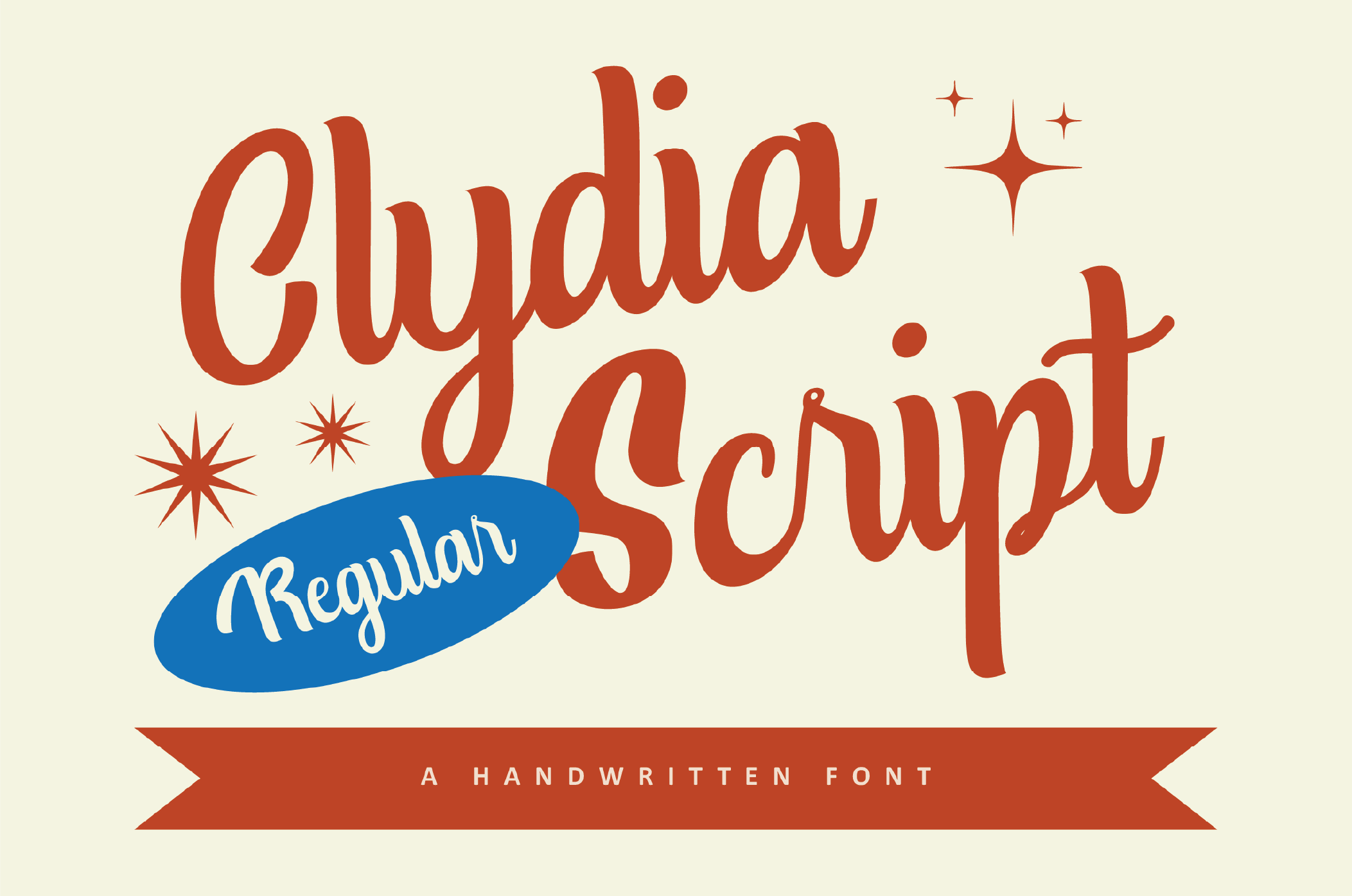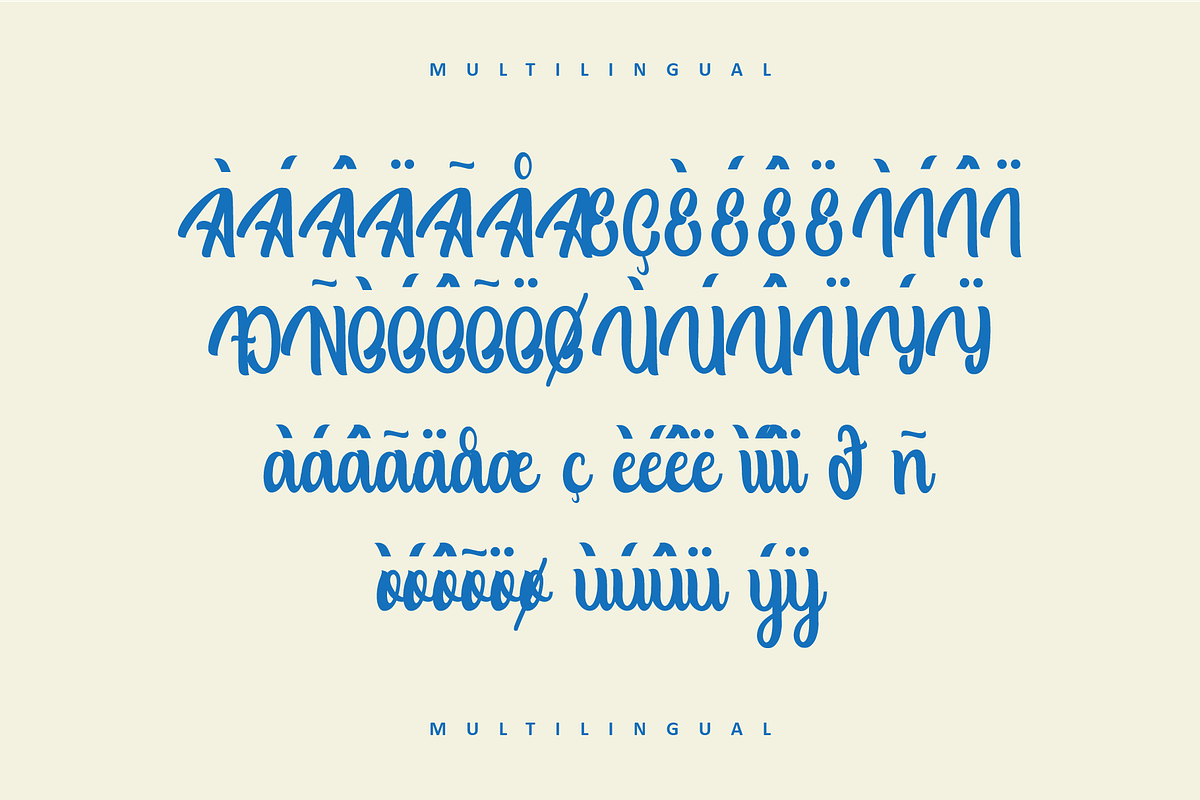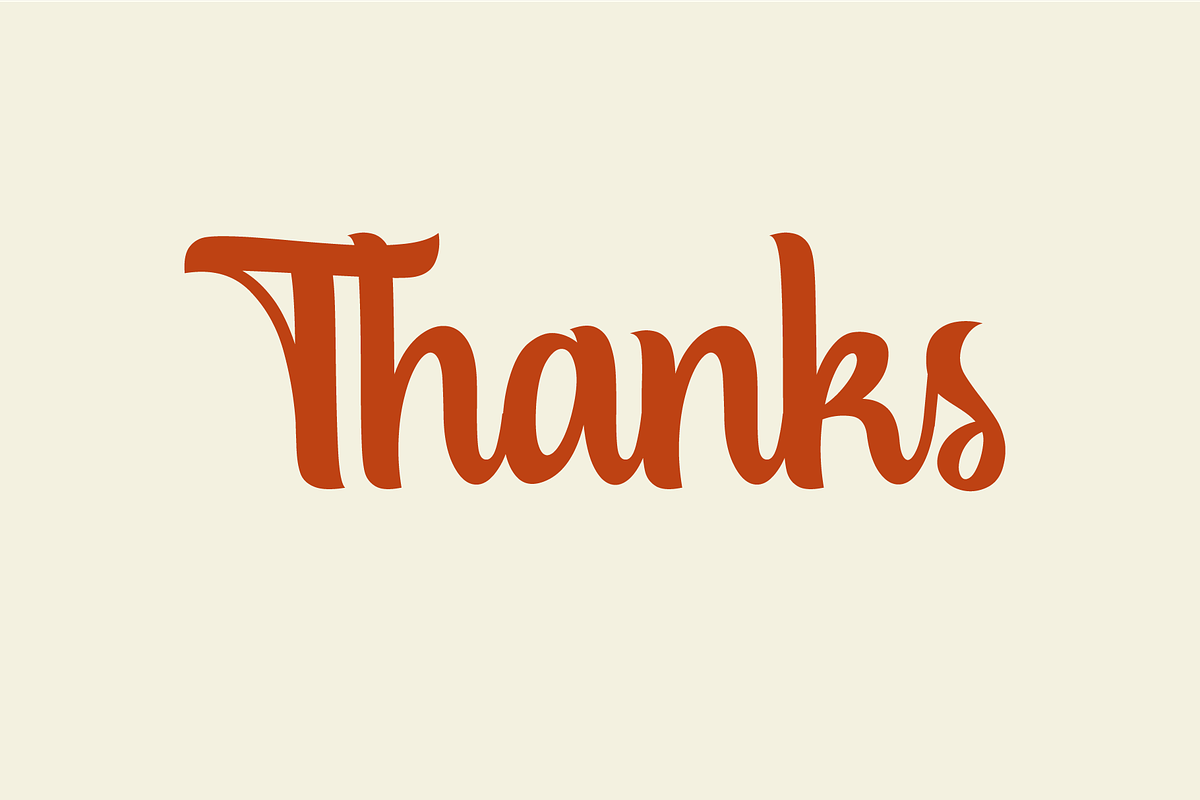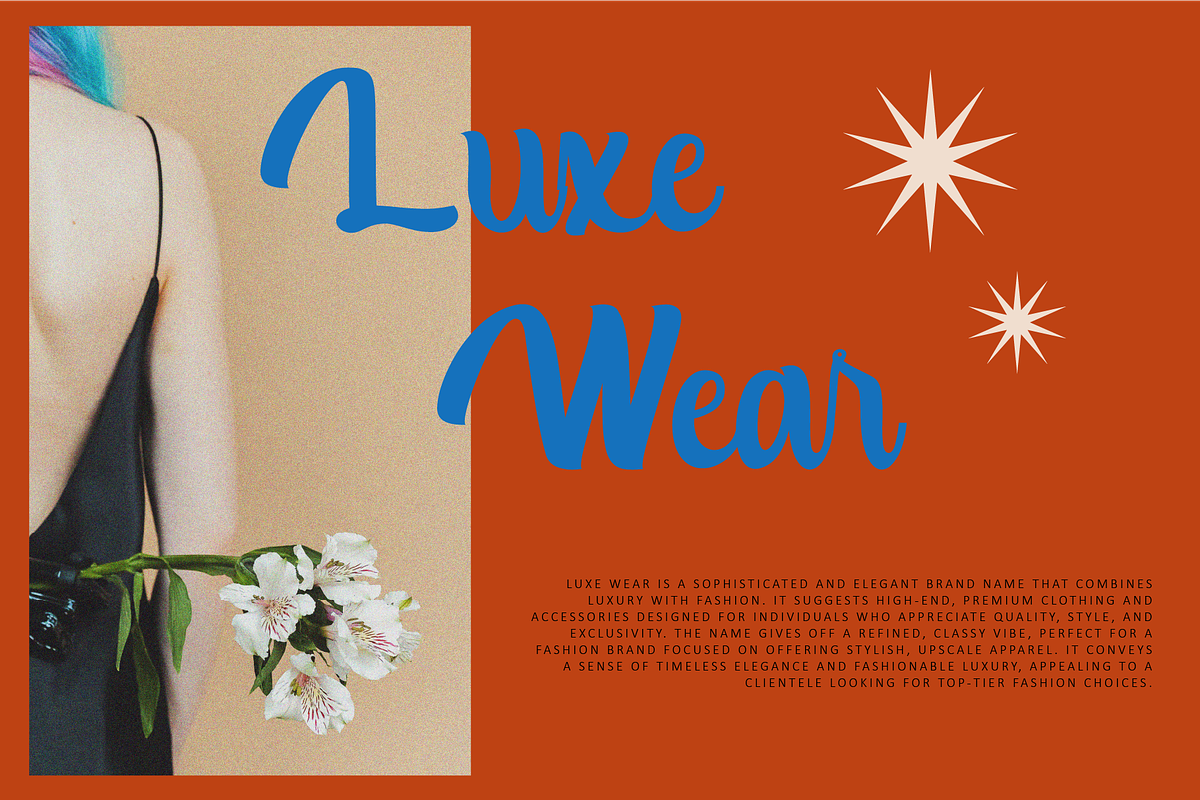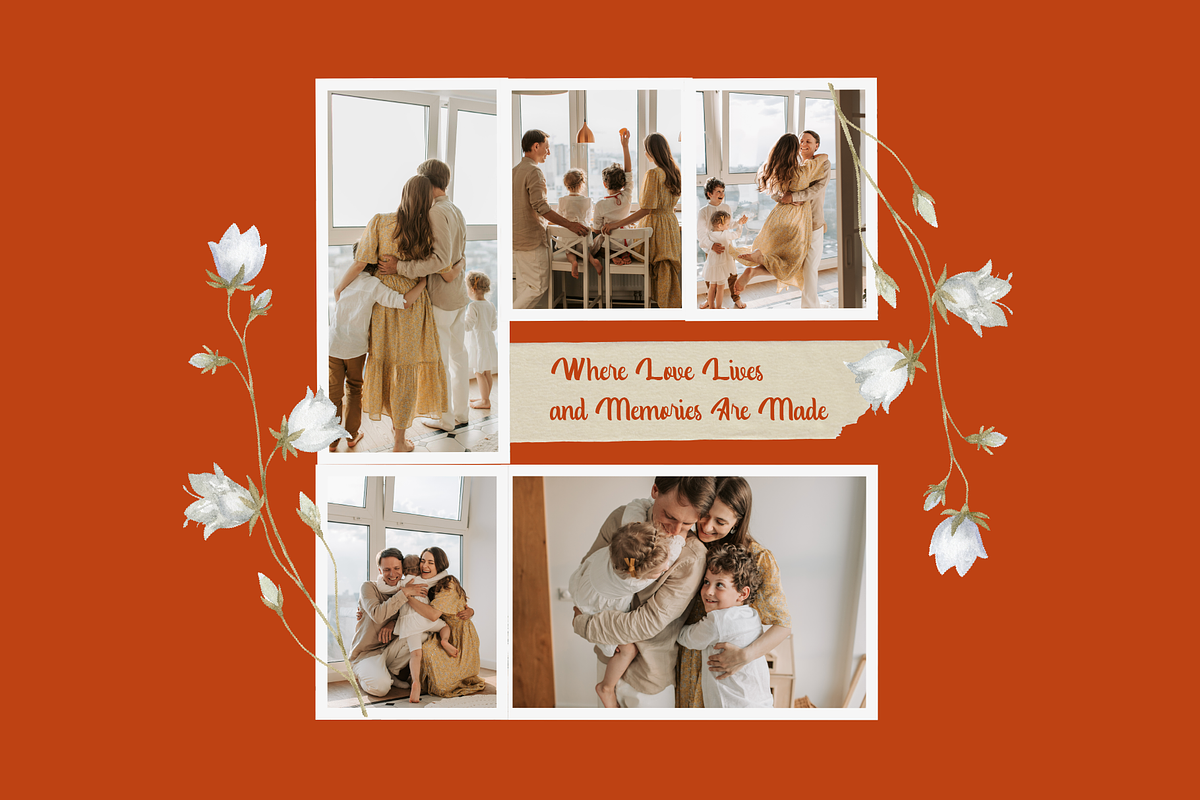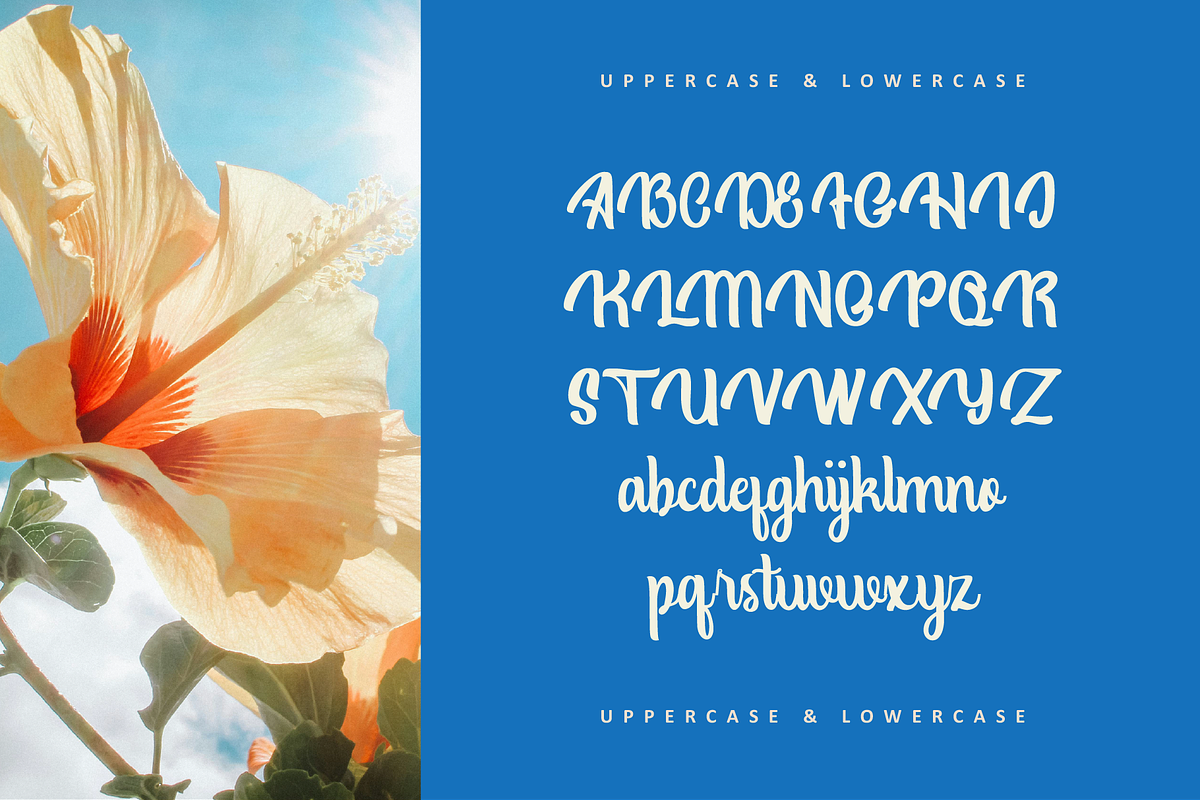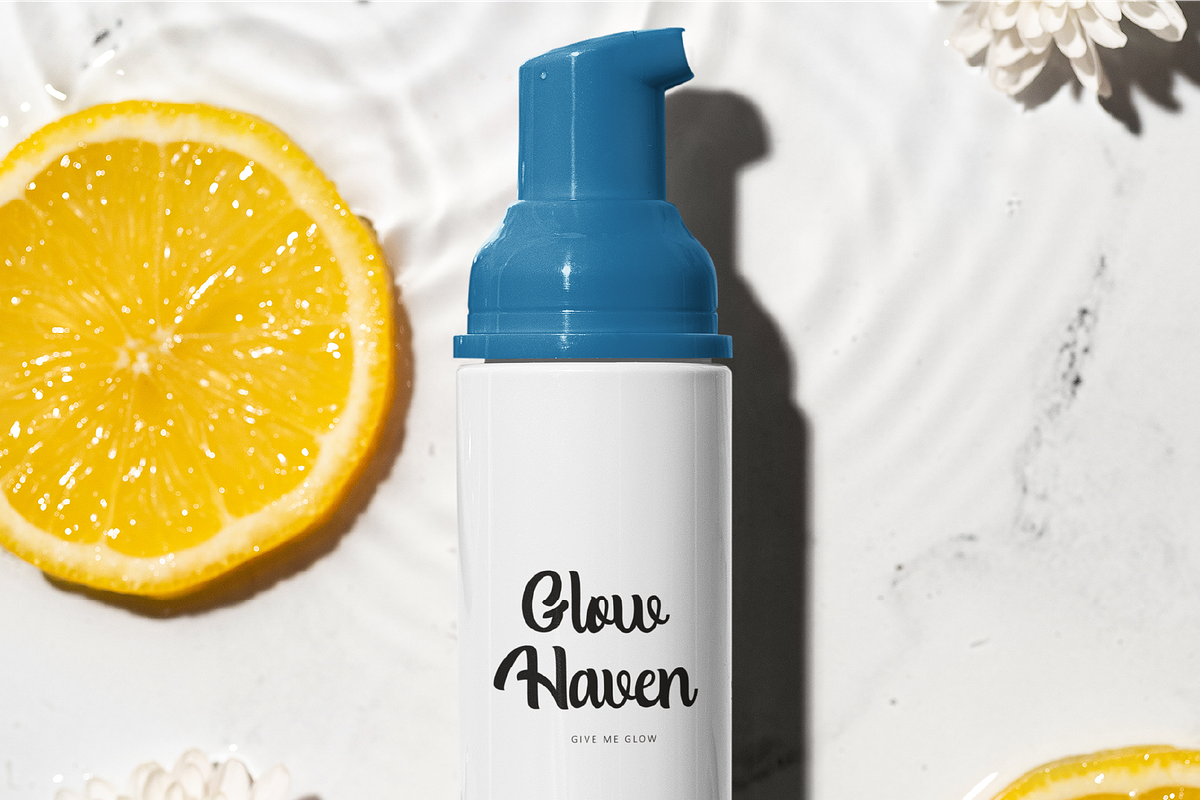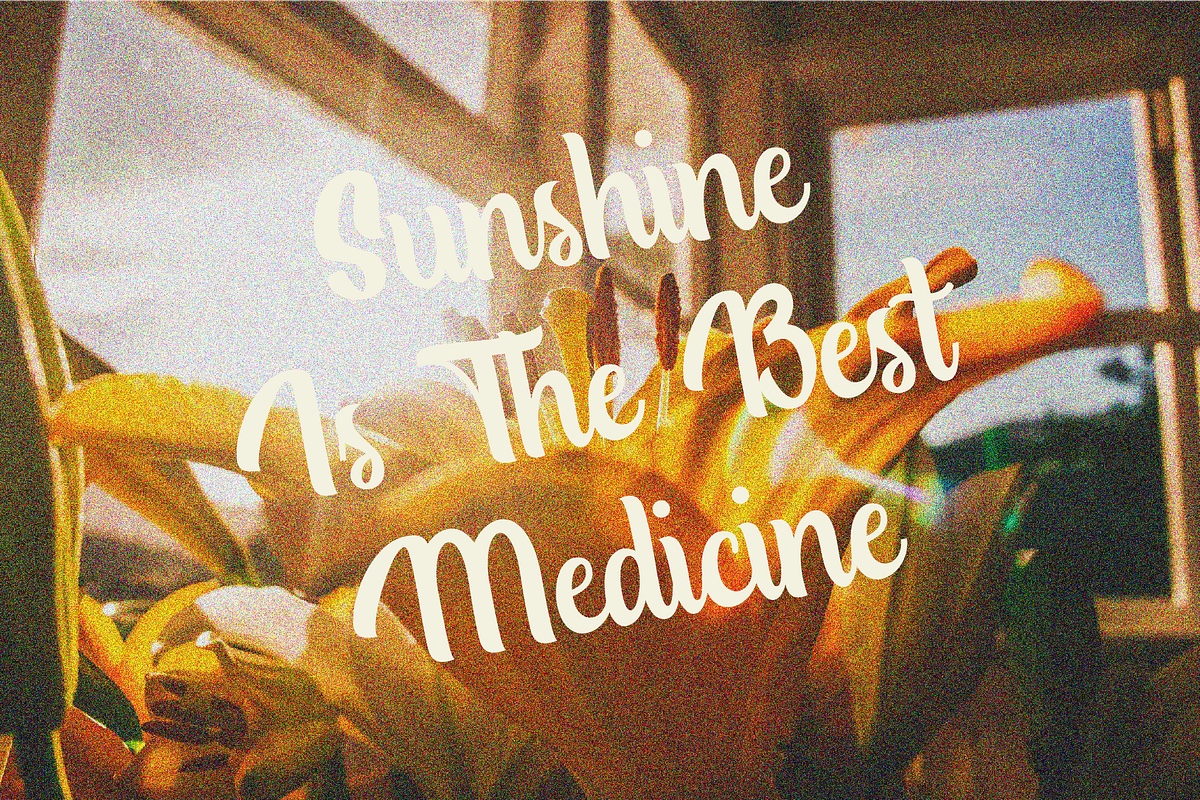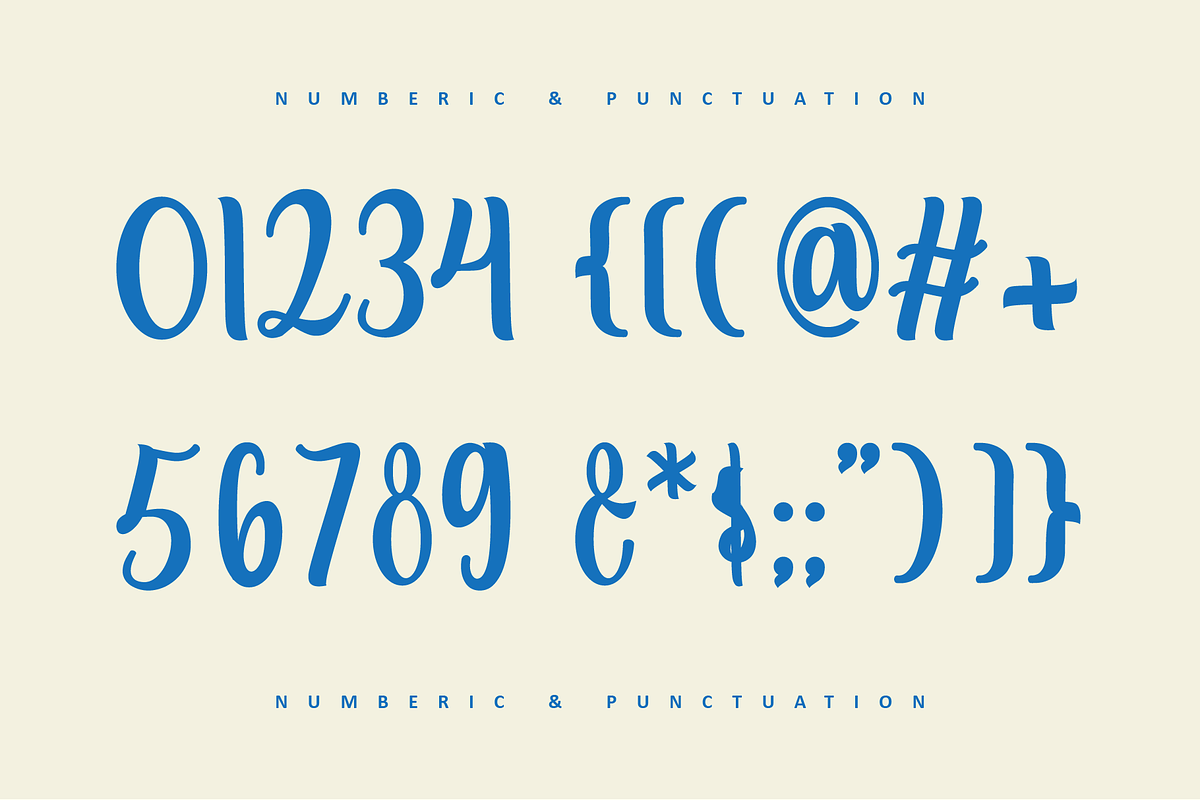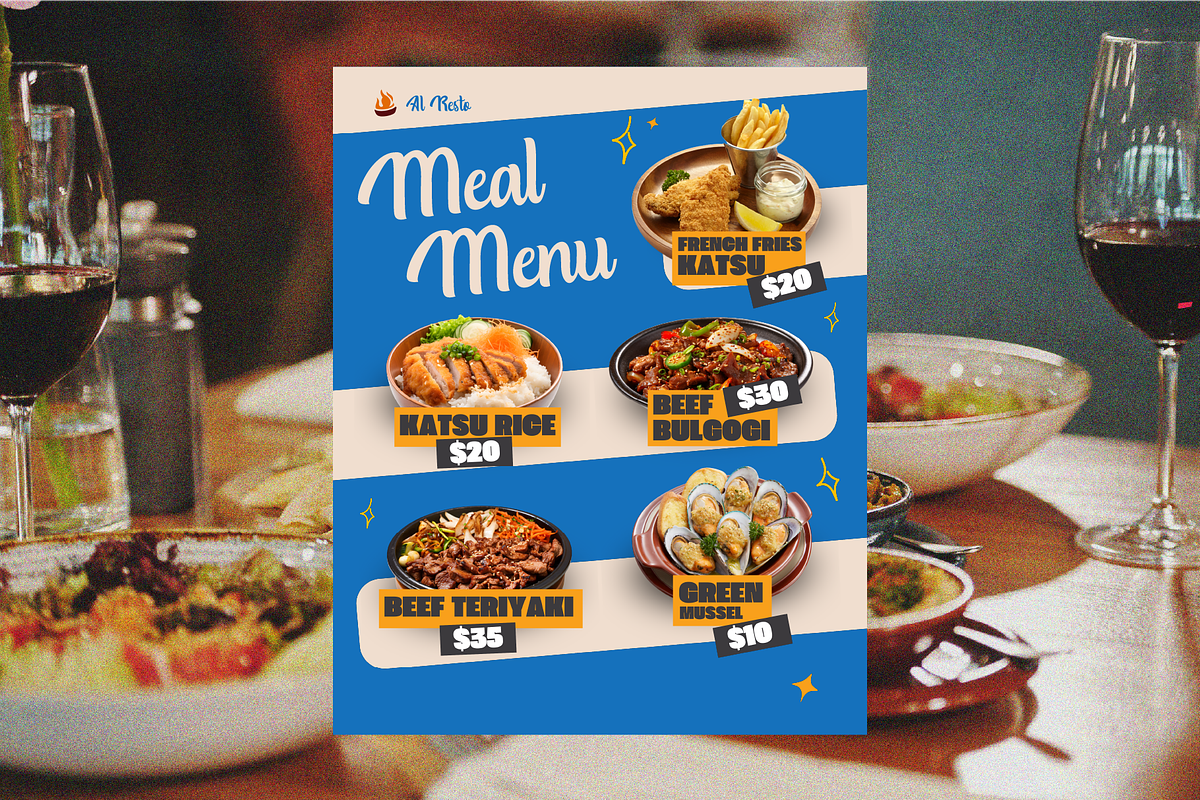
Clydia - A Script Font
Clydia Script is a charming and playful handwritten font that combines the fluidity of script typography with bold, friendly letterforms. Featuring smooth curves and lively strokes, Clydia Script brings personality and a modern vintage vibe to any design.